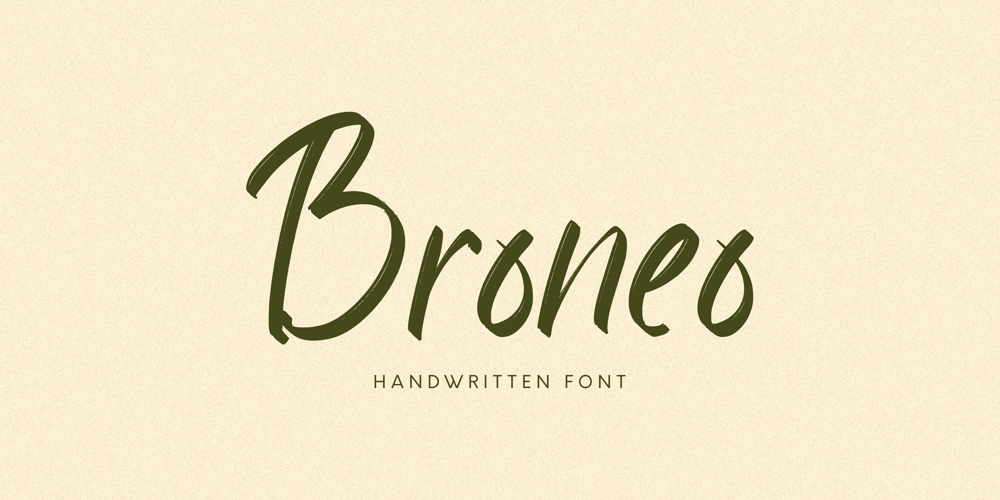
Broneo Font Family was designed by Ibnu Utomo and published by Omotu. Broneo contains 1 styles and family package options. DETAILSBroneo! A handwritten script font. Broneo font is perfect for branding, logotype, apparel, T-shirt, Hoodie, product packaging, quotes, flyer, poster, etc.Whats Include? 1. Uppercase and lowercase characters 2. Supports international languages 3. Numerals, punctuations, ligatures.4. Accessible in the Adobe Illustrator Glyphs panel, or under Stylistic Alternates in the Adobe Photoshop OpenType menu, Adobe InDesign, Corel Draw, even work on Microsoft Word. Please message me if you’re unsure of any language support.Thanks for looking, and I hope you enjoy it! Please don’t hesitate to drop me a message if you have any issues or queries.Omotu